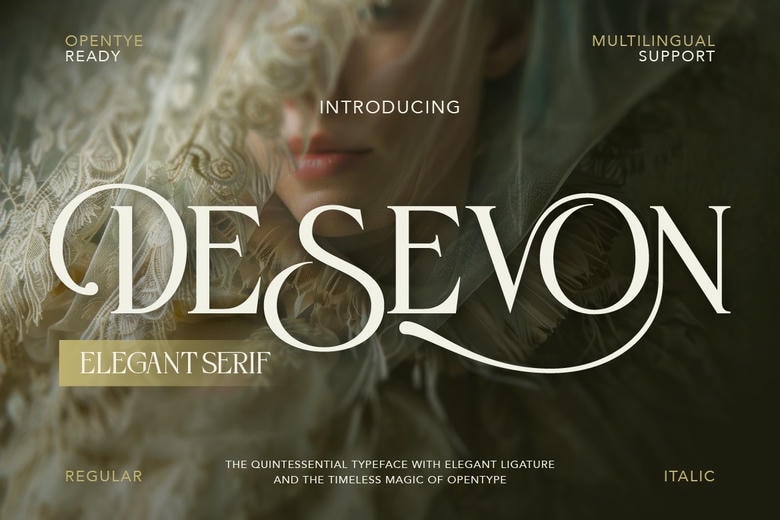
Desevon Font
Desevon is a refined serif font that brings both timeless beauty and a modern touch to your projects. Its graceful curves, bold contrasts, and elegant ligatures combine classic design with a fresh look.
This font is designed for creators who want elegance and a distinctive style. It includes stylish alternates and delicate swashes that flow smoothly, making every word look unique and expressive.
Desevon is a great choice for high-end branding, editorial layouts, wedding invitations, or luxury packaging. It adds classic charm and a modern touch to any project.
Desevon Serif Font